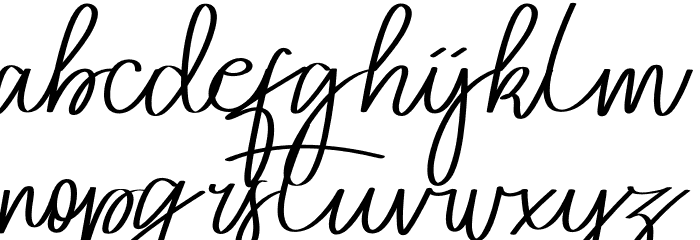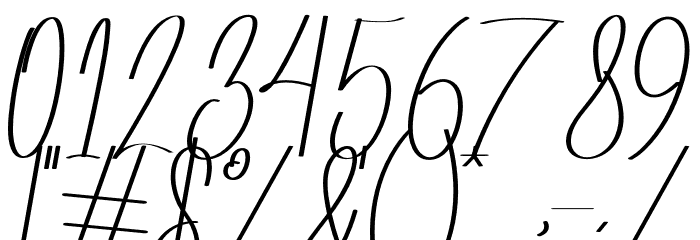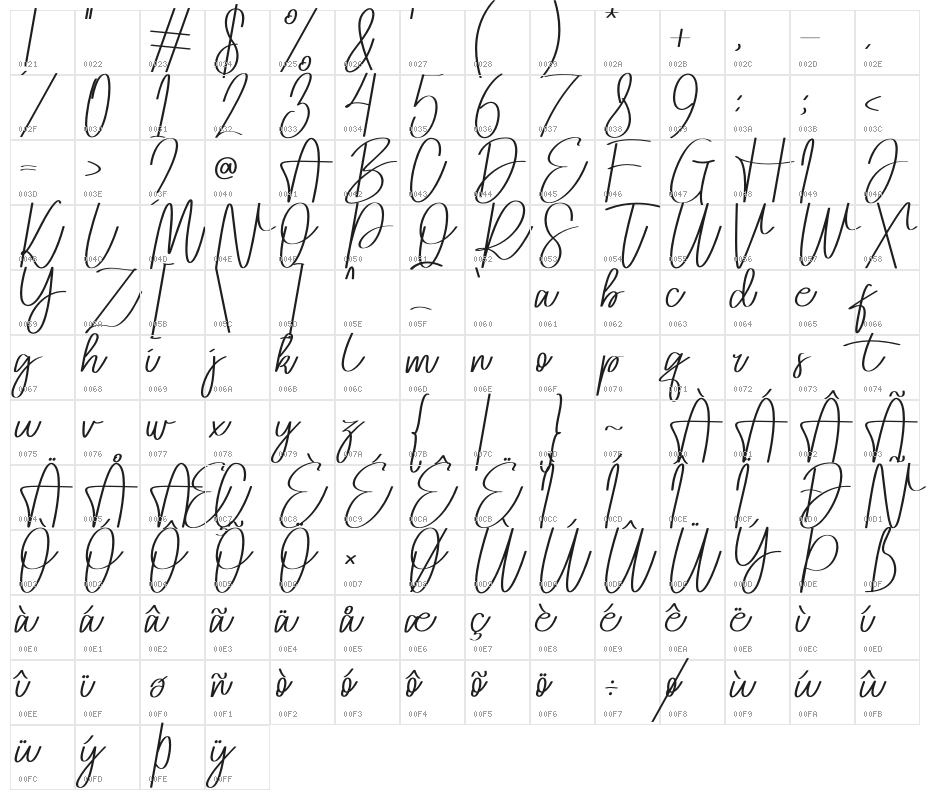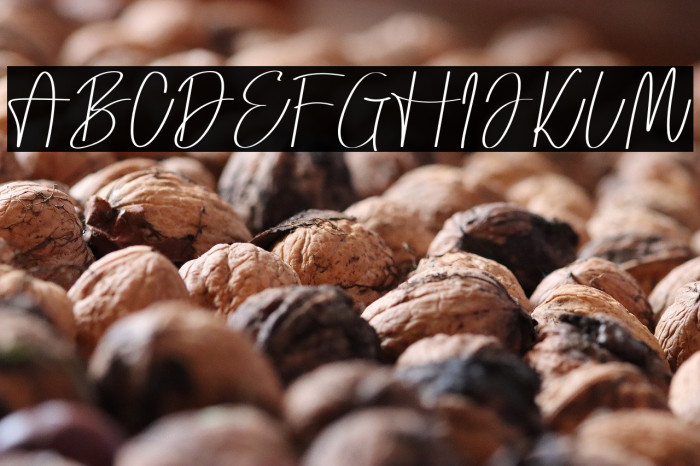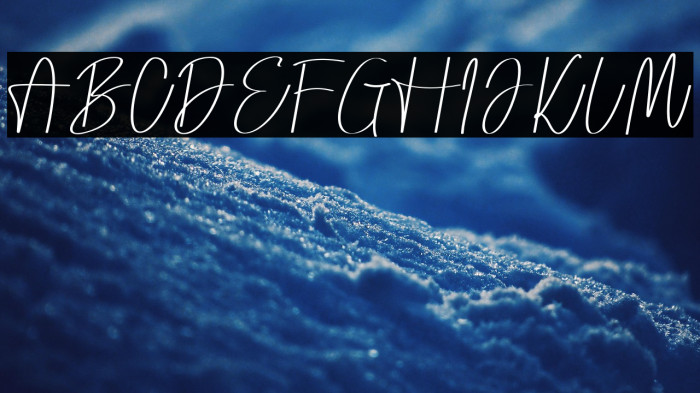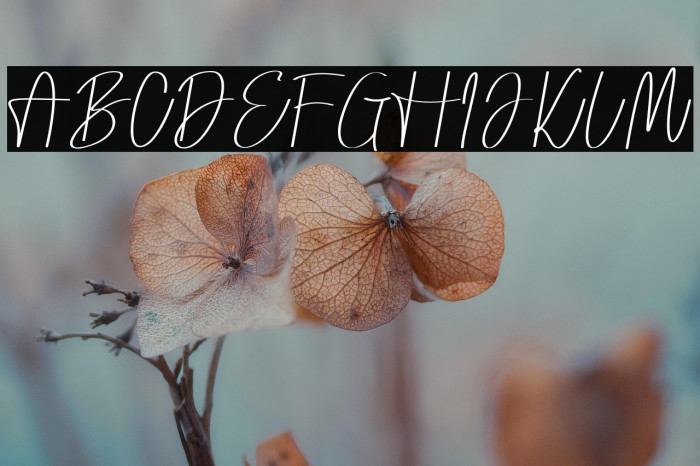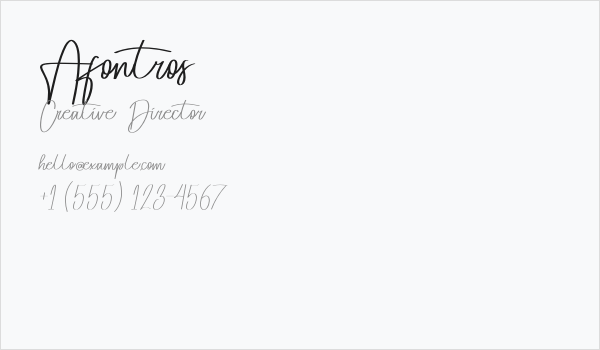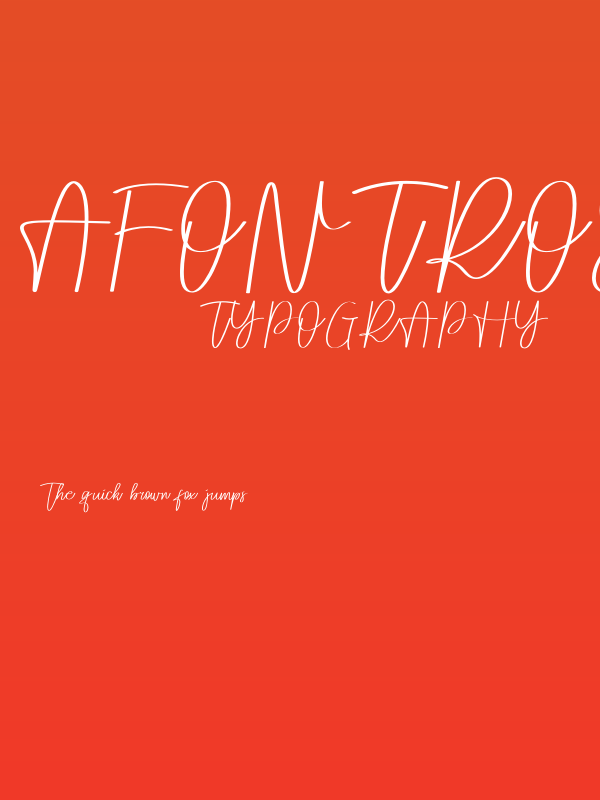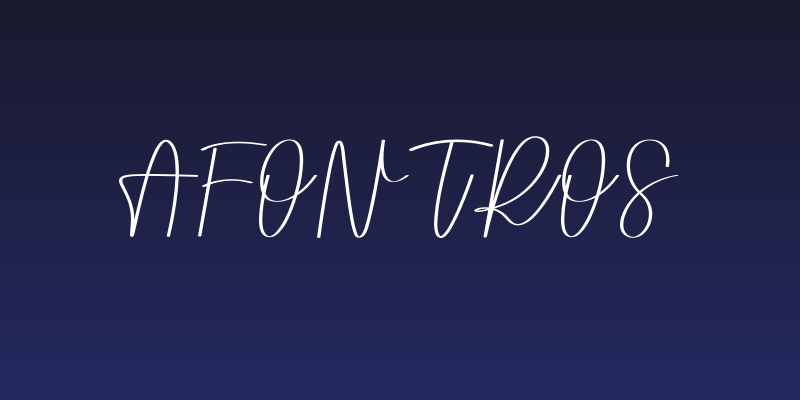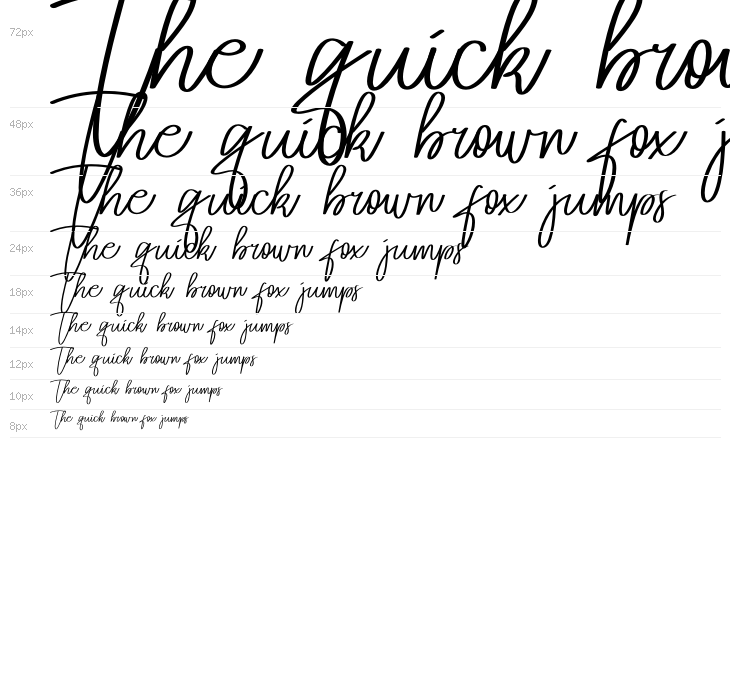
Afontros Font
This font features an elegant, flowing script style that mimics the fluidity of natural handwriting. The uppercase letters are tall and slender, with a slight slant that adds a dynamic feel. The lowercase letters are more rounded and connected, creating a harmonious and cohesive look. The numerals are consistent with the overall style, maintaining the same graceful curves and thin lines. Special characters are designed to blend seamlessly with the letters, ensuring a uniform appearance across all text. This font exudes a sense of sophistication and creativity, making it suitable for a variety of design projects.
An elegant, flowing script font with a natural handwriting style.
- Font: Afontros
- Proposed Projects: Ideal for wedding invitations, greeting cards, branding, and elegant logos.
- Category: Script
- Overall Style: Elegant, Creative
- Use Case: Headlines, Invitations, Branding